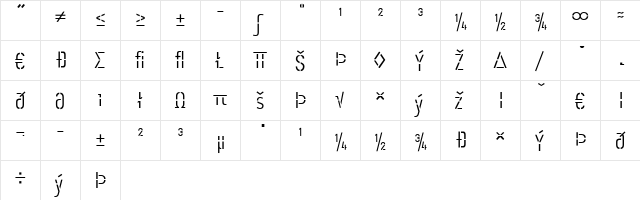
Offline-LightExpert Light
| Foundry | Roelof Mulder, . Published by FontShop International. FontFont Release |
Offline-LightExpert is a composed and adaptable typeface that performs quietly and consistently across a wide range of design contexts. Its slender proportions lend an understated elegance to any composition.